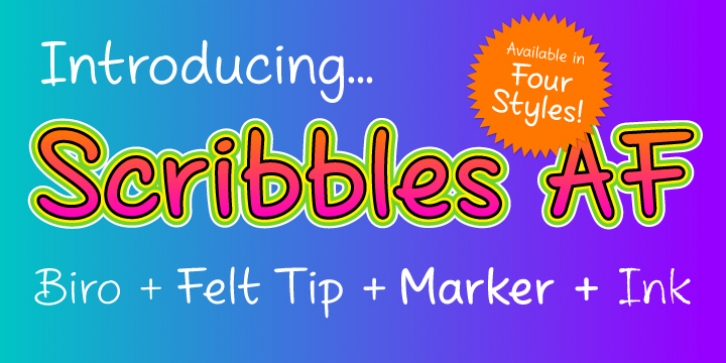
Scribbles AF is the perfect choice when you want to add a little personality to your design.
The font comes in four weights and has been created using scans of real handwriting. The soft, rounded edges of each letter in Biro, Felt Tip and Marker give it a very relaxed and friendly appearance, or for something a little more quirky why not try the Ink version? Ideal for notes, labels, packaging and child friendly projects.